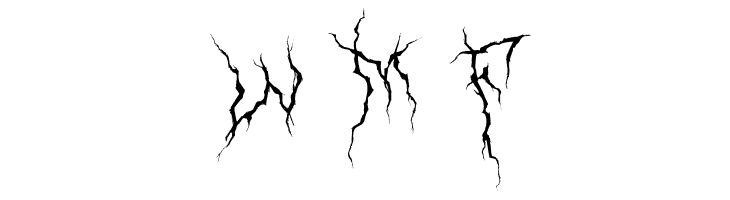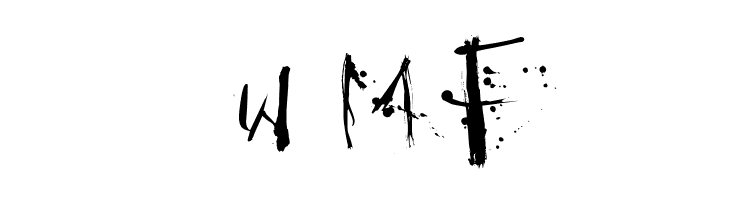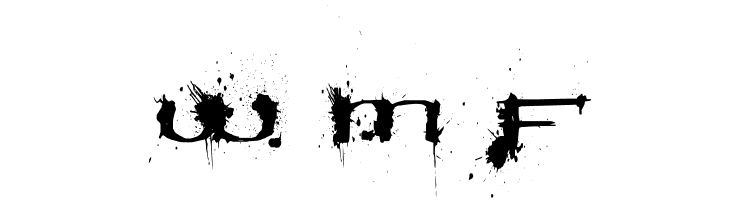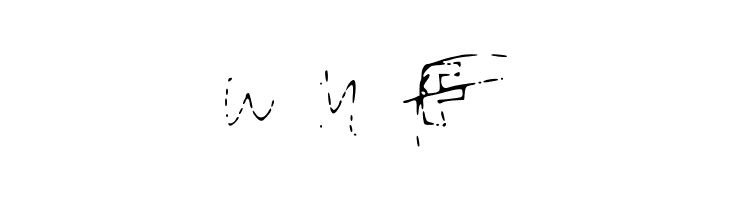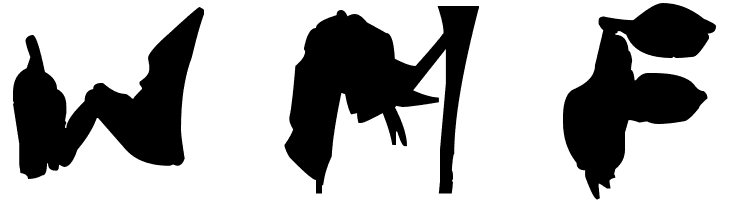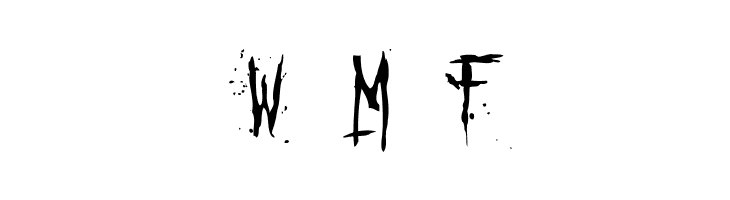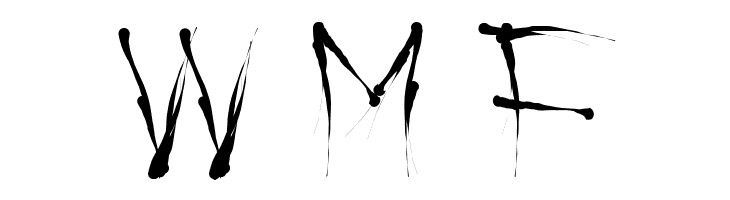
A bold, distressed font with a grunge aesthetic and rugged texture.
A rugged, distressed font with a chaotic, hand-drawn style.
A chaotic, distressed font with jagged, uneven strokes for a grunge aesthetic.
A chaotic, hand-drawn font with jagged strokes and an intense, edgy style.
A fragmented, edgy font with a chaotic and dramatic appearance.
A bold, scratch-like font with a chaotic, hand-drawn appearance.
A distressed, grunge-style font with a chaotic, cut-out letter appearance.
A bold, abstract font with a chaotic, liquid-like appearance.
A bold, splattered font with a dynamic and chaotic style.
A chaotic, hand-drawn font with a scribbled, graffiti-like style.
A playful, hand-drawn font with a sketch-like, chaotic appearance.
A jagged, irregular font with a chaotic and energetic style.
A bold, jagged, and dynamic font with a chaotic, artistic style.